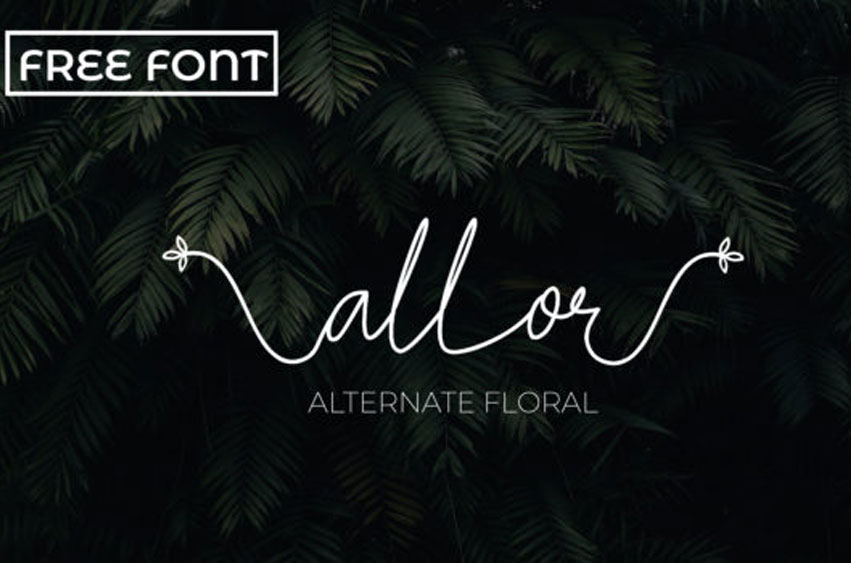
Allor Font
Allor Font is an elegant and slim lettered handwritten font.
It has beautiful and well-balanced characters, so it matches a wide pool of designs.